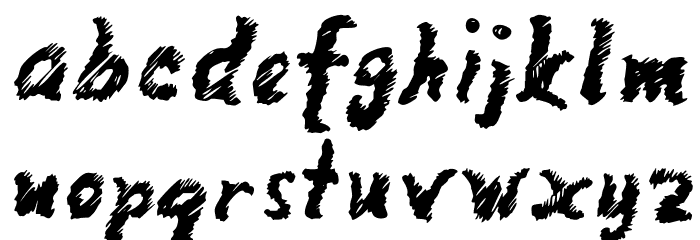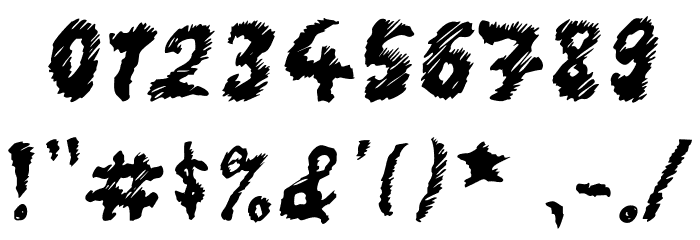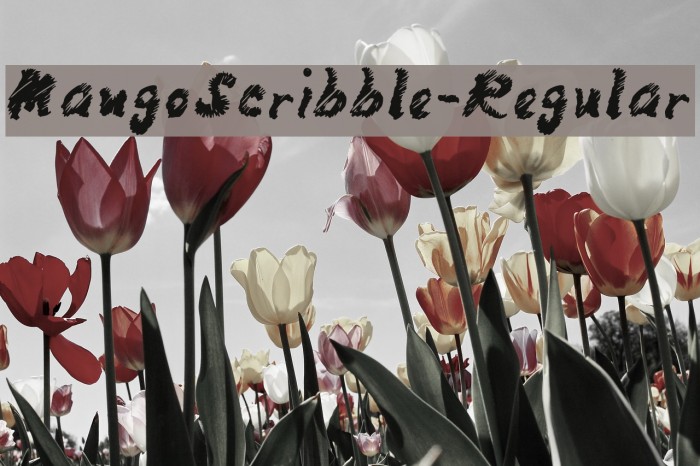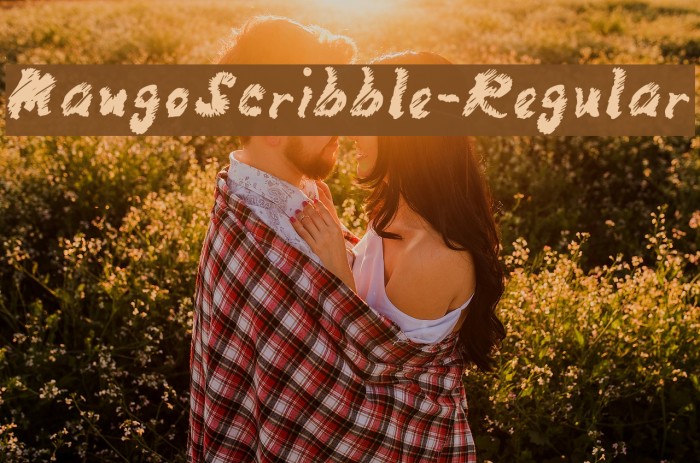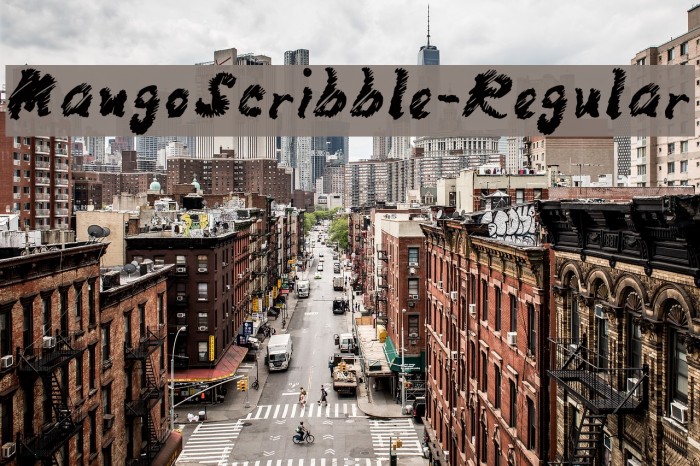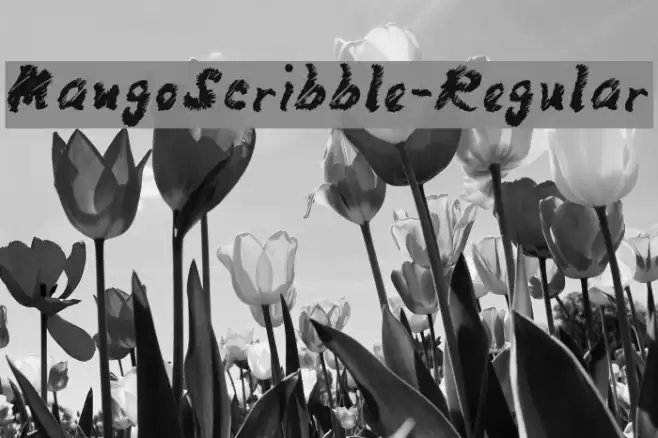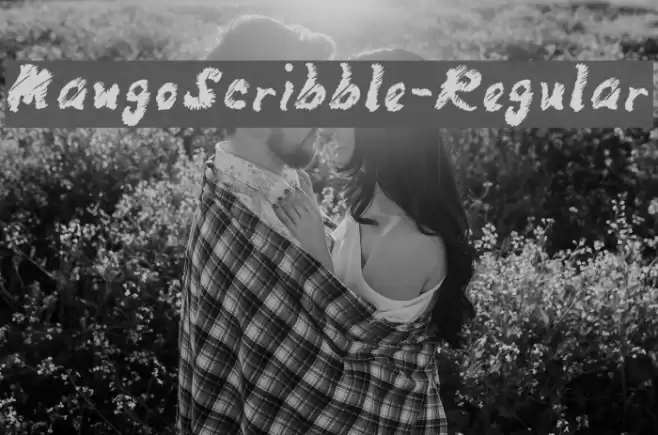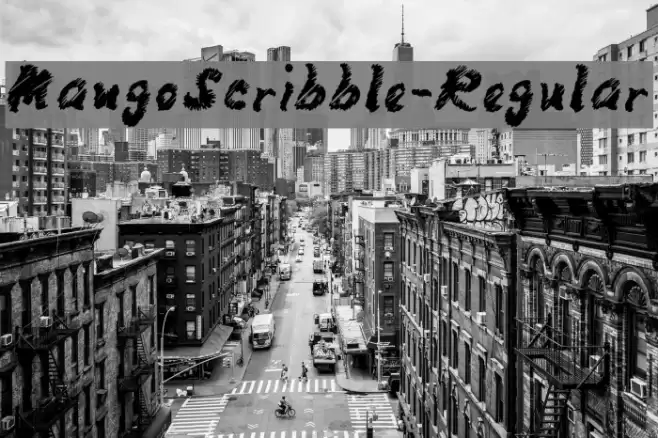
MangoScribble-Regular Font
This font features a dynamic and energetic style with a hand-drawn appearance. Each character is crafted with a rough, scribbled texture, giving it a lively and spontaneous feel. The strokes are thick and bold, with irregular edges that enhance its playful and informal nature. The font maintains a consistent weight throughout, ensuring readability despite its decorative elements. Its unique style makes it stand out, perfect for projects that require a touch of creativity and flair.
A bold, hand-drawn font with a scribbled texture and playful style.
- Proposed Projects: Ideal for creative projects such as posters, greeting cards, children's books, and playful branding.